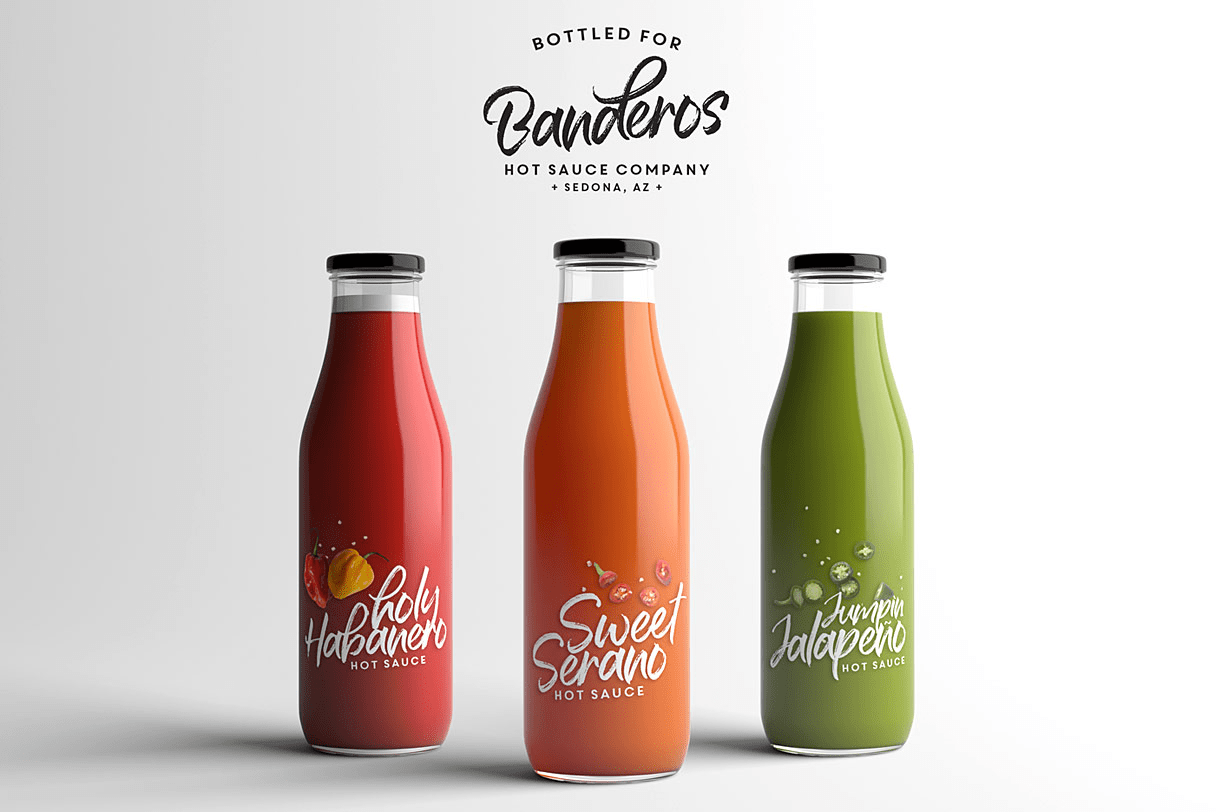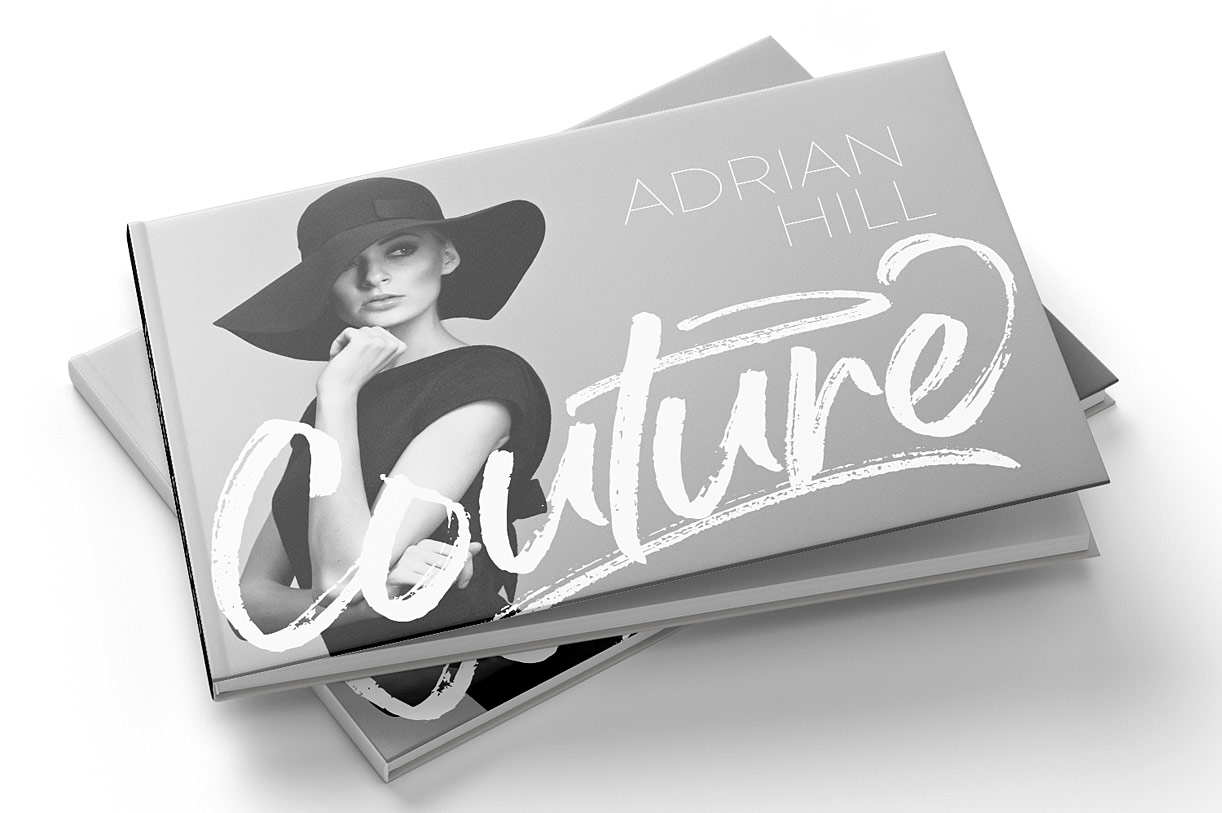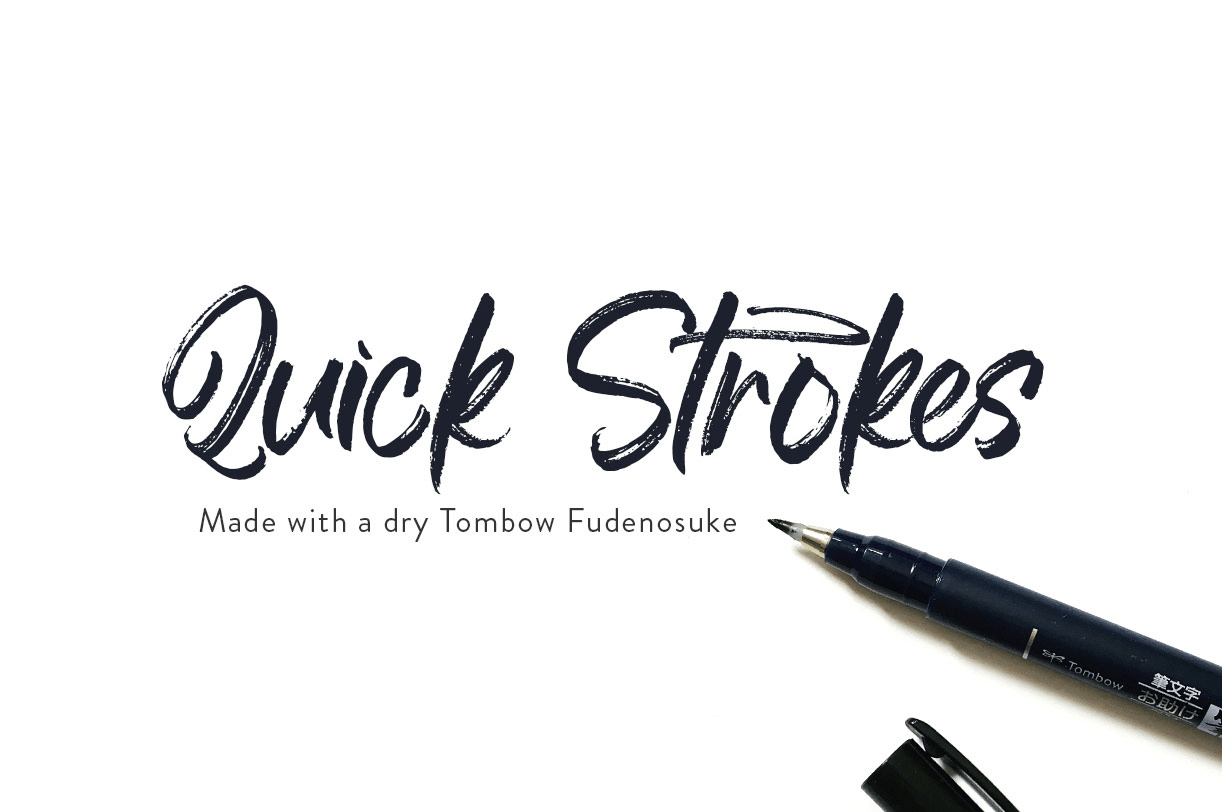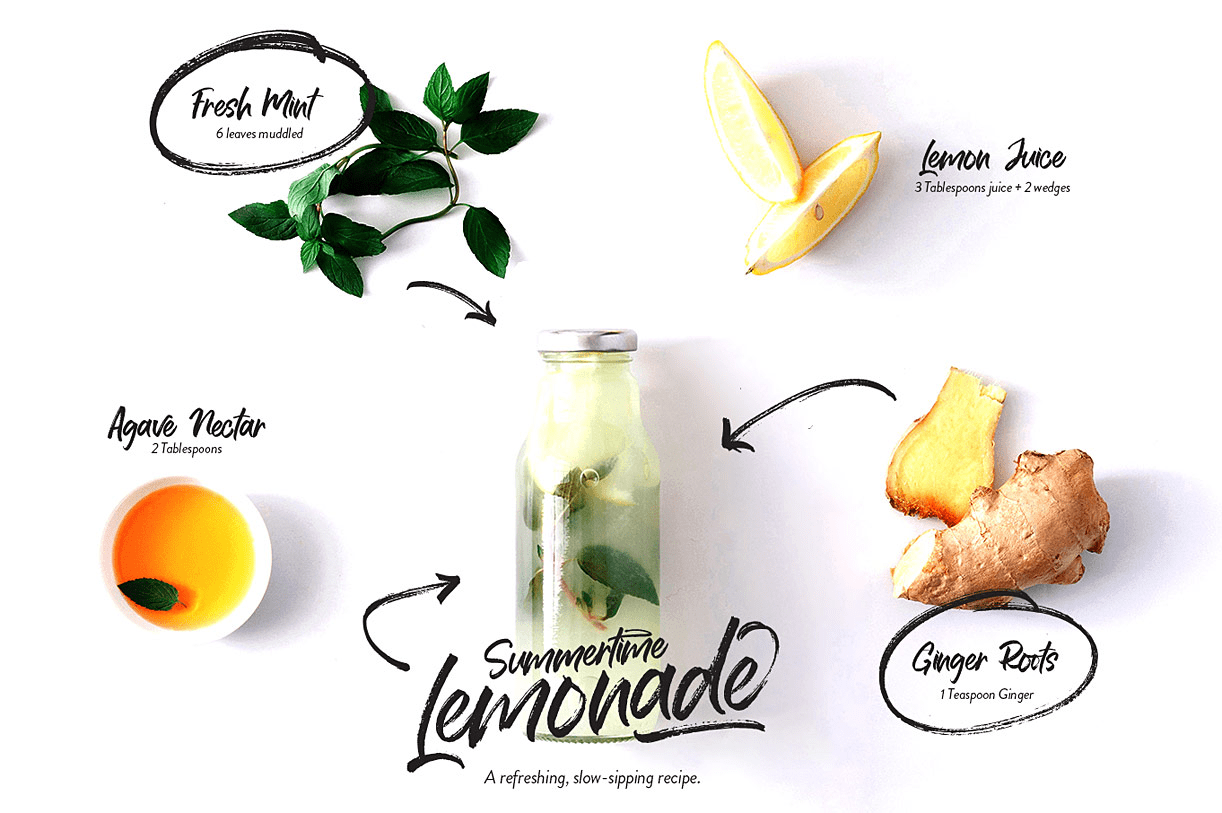
About Moonstruck
Introducing Moonstruck! A quick and sassy handwriting font, made with a dry Tombow Fudenosuke. Use Moonstruck on branding, magazines, product packaging, editorials, advertising campaigns, book covers and more! WHAT\’S INCLUDED? Moonstruck Handwriting…